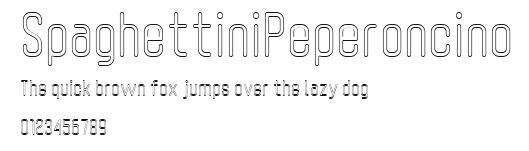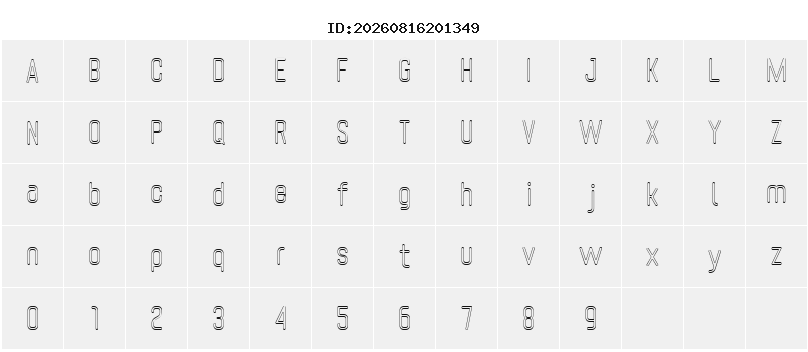
SpaghettiniPeperoncino Preview
• Font Name: SpaghettiniPeperoncino
• Full Font Name: SpaghettiniPeperoncino
• PostScript Name: SpaghettiniPeperoncino
About SpaghettiniPeperoncino.ttf
SpaghettiniPeperoncino.ttf is a modern, elegant sans-serif font designed for ultimate readability and visual harmony. Perfect for branding, headlines, web design, and print materials.